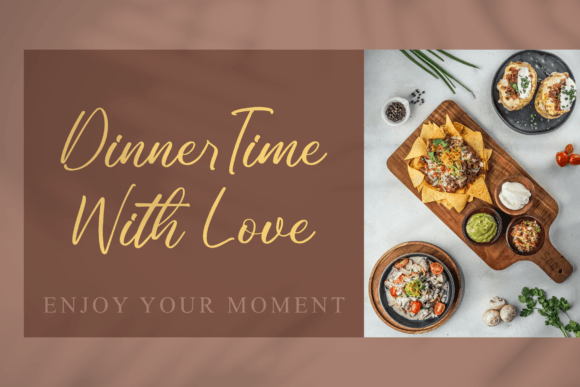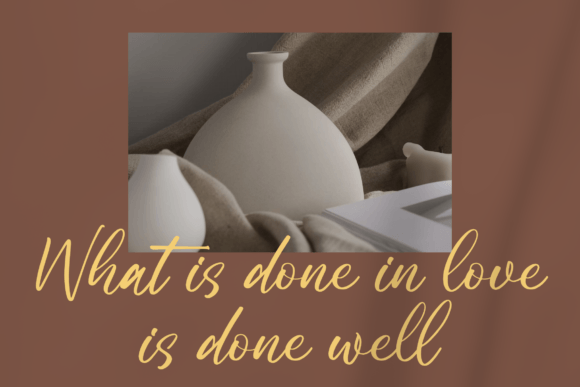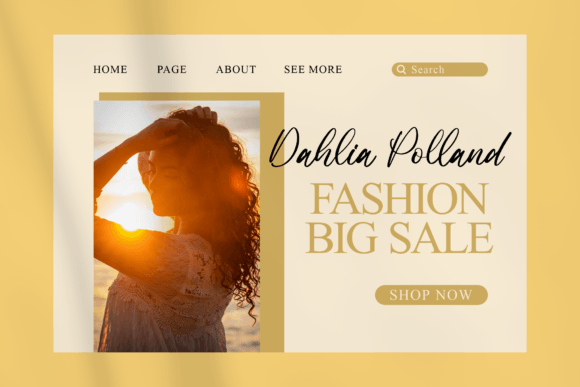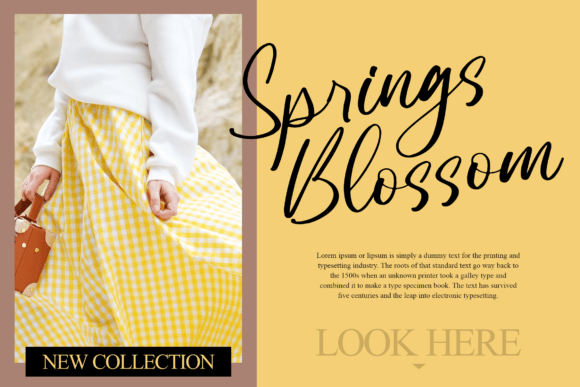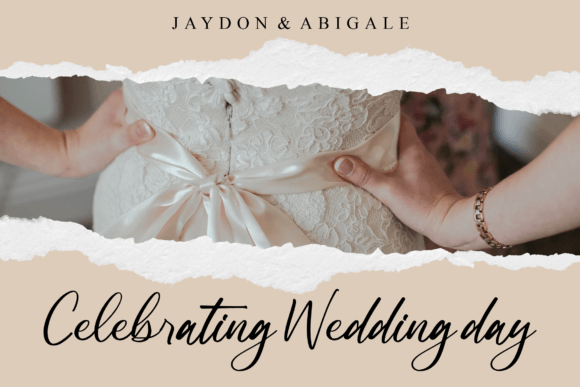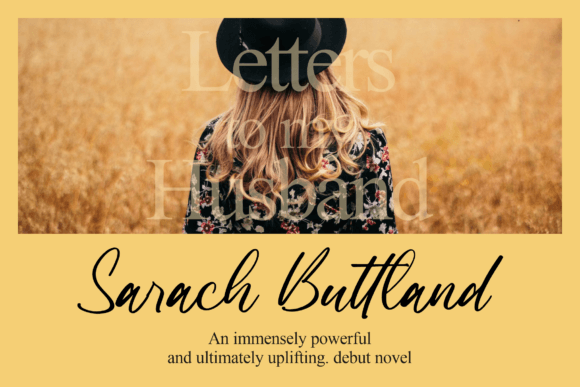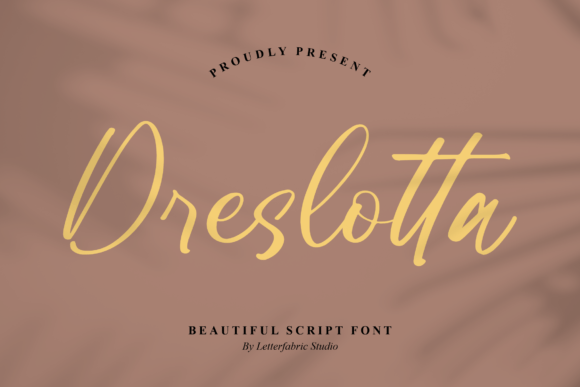
Dreslotta Font: Elevate Your Designs with Elegance and Sophistication
In the world of design, typography plays a crucial role in conveying the tone and aesthetic of a project. Whether you’re a professional designer, crafty DIY enthusiast, or social media influencer, finding the right font can make all the difference. If you’re looking for a font that exudes class, elegance, and modernity, look no further than Dreslotta. This stunning font is perfect for a wide range of creative projects, from logos and branding to invitations, stationery, wedding designs, and social media posts.
The Dreslotta Advantage: A Classy, Elegant, and Modern Look
Dreslotta boasts a sophisticated and refined design that instantly elevates any project. Its sleek lines, precise curves, and balanced proportions create a harmonious visual experience that captivates audiences. This font’s versatility allows it to seamlessly adapt to various design contexts, making it an excellent addition to any creative toolkit.
Endless Creative Possibilities with Dreslotta
With Dreslotta, the possibilities are endless. Use it to:
- Create stunning logos and branding materials that leave a lasting impression
- Design elegant invitations and stationery for special occasions
- Craft beautiful wedding designs, including save-the-date cards, wedding programs, and more
- Elevate your social media posts with a touch of sophistication
- Add a dash of elegance to your packaging, advertising, and marketing materials
Why Dreslotta Will Seduce Your Audience
Dreslotta’s unique blend of style and form is sure to captivate your audience. Its modern look and feel will instantly grab attention, while its elegance and sophistication will leave a lasting impression. Whether you’re targeting a high-end clientele or simply want to stand out in a crowded market, Dreslotta is the perfect choice.
Tips for Getting the Most Out of Dreslotta
To maximize the impact of Dreslotta, consider the following tips:
- Experiment with different font sizes and colors to create visual hierarchy and contrast
- Pair Dreslotta with complementary fonts to add depth and interest
- Use Dreslotta consistently across your brand or project to create a cohesive look
- Don’t be afraid to get creative and try out new and innovative design ideas
Who Can Benefit from Dreslotta?
Dreslotta is perfect for:
- Professional designers and agencies looking for a high-end font solution
- Crafty DIY enthusiasts and small business owners seeking a unique and elegant look
- Social media influencers and bloggers aiming to elevate their visual brand
- Wedding planners and event designers searching for a sophisticated font for their designs
In conclusion, Dreslotta is a game-changing font that can instantly elevate your designs with its classy, elegant, and modern look. With its versatility, style, and form, it’s the perfect addition to any creative project. Whether you’re a seasoned designer or a crafty DIY enthusiast, Dreslotta is sure to seduce your audience and leave a lasting impression. So why wait? Add Dreslotta to your toolkit today and experience the power of exceptional typography!